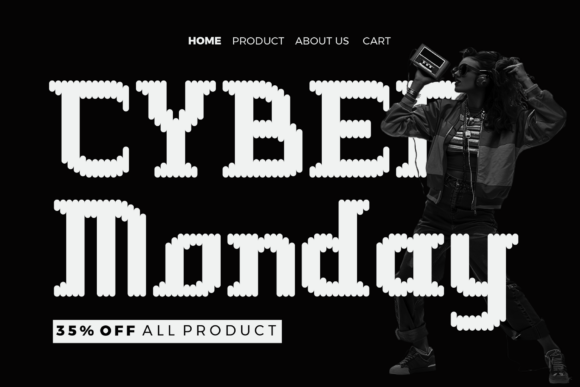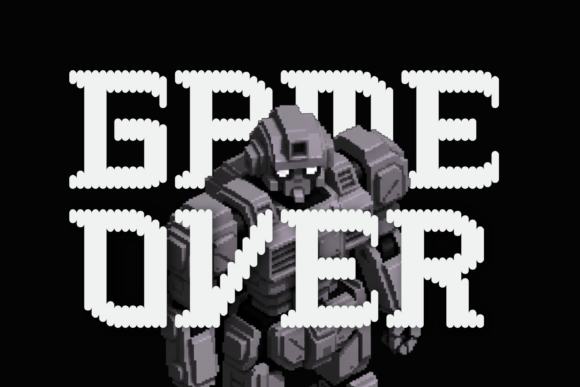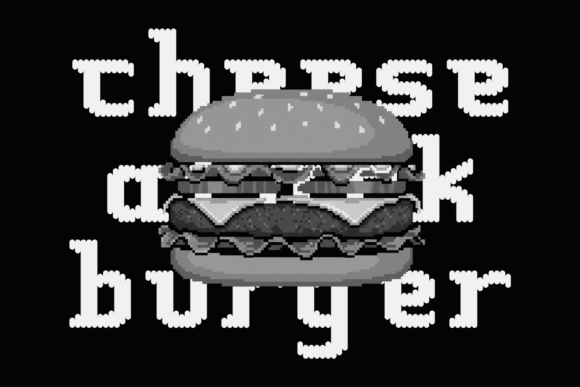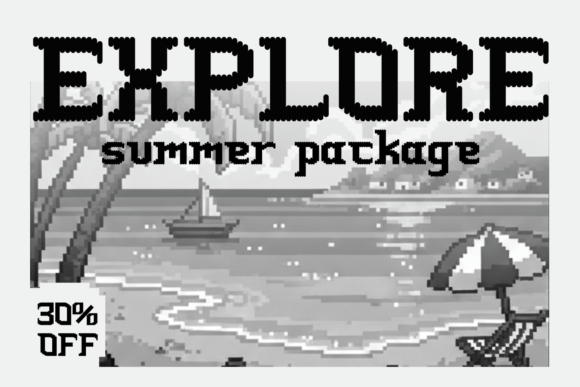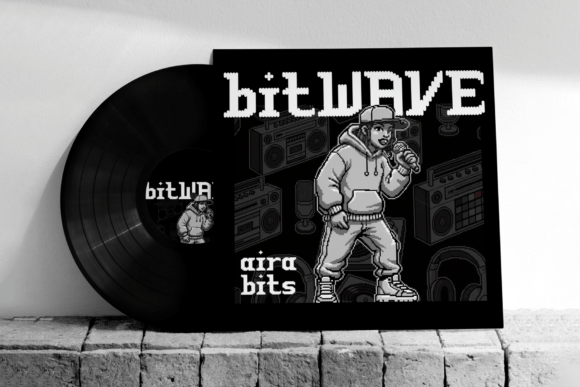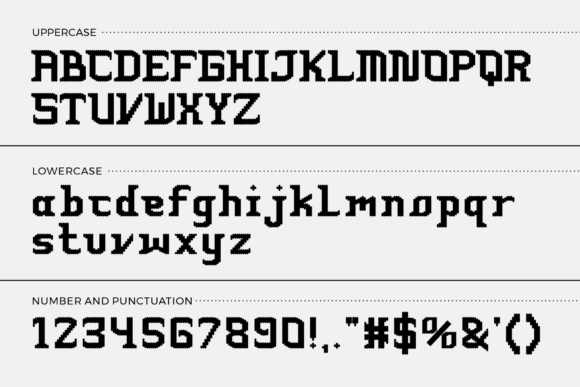
Introduction to Bitova Font
Immerse in a fusion of retro digital elegance and strong modern undertones with Bitlova, a pixel-infused display font.
Drawing inspiration from the primitive charm of bitmap graphics and iconic 8-bit typography, this typeface brings a refreshing edge to the archetypal pixel aesthetic Each character, composed of softened pixel dots, shoulders an inimitable balance of tenderness and edginess, placing Bitlova in a league of its own.
Key Features of Bitova Font
Why Choose Bitova Font?